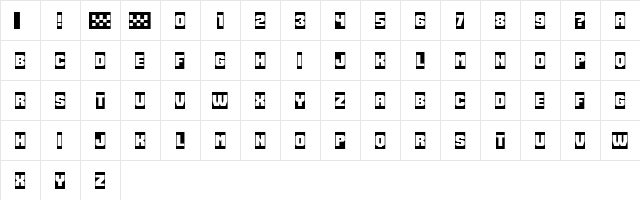
Complete Speed Racing Negative glyph index. Displaying only characters natively supported by Speed Racing Negative font.
Speed Racing is a composed and adaptable typeface that performs quietly and consistently across a wide range of design contexts.